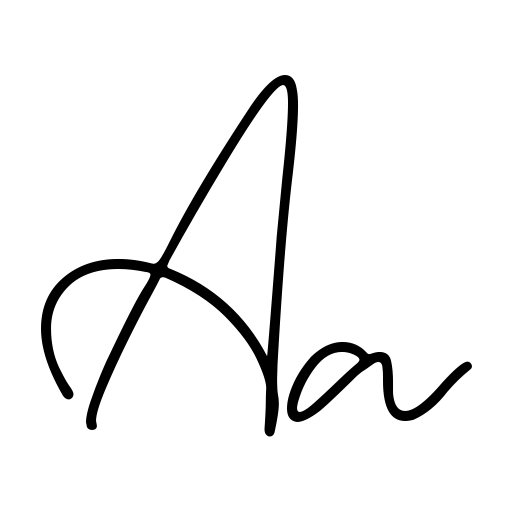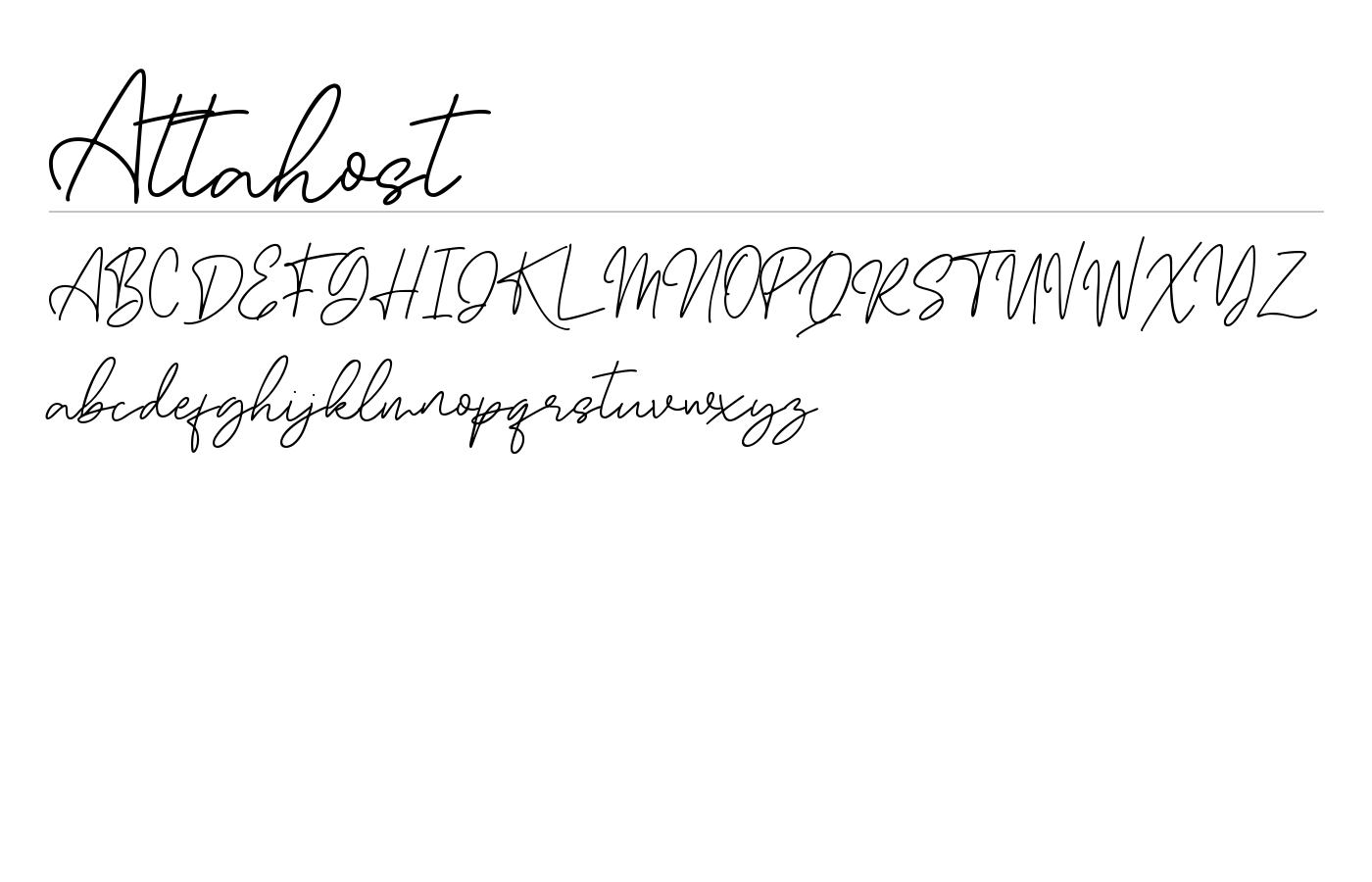
Attahost is a delicate, handwritten script font with a light, airy feel and elegant, flowing letterforms. Its thin strokes and natural, casual style give it a personal and artistic touch, making it ideal for creative projects, invitations, and branding that seeks a sophisticated yet approachable look. This font works beautifully in designs that require a handwritten, stylish flair without overwhelming the overall composition.
Attahost Font
About Attahost Font
| Font family | Attahost Font |
| Designer | Deemak Daksina |